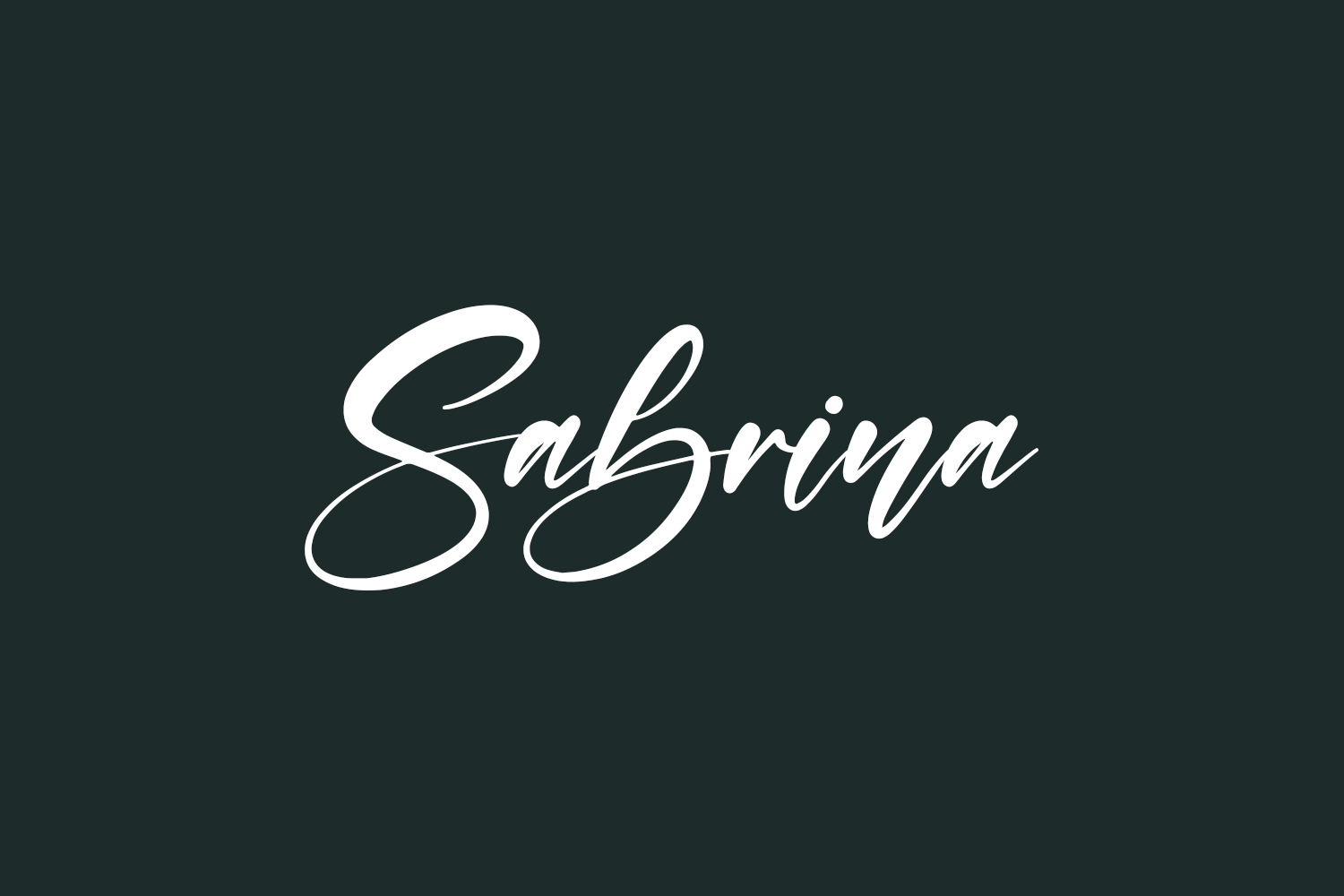
Sabrina Free Font is a lovely handwritten font. Use it for any design projects that require a charming appearance. Sabrina Free Font was designed by Letterena Studios and is free for personal use only. Please purchase the full version for commercial use.